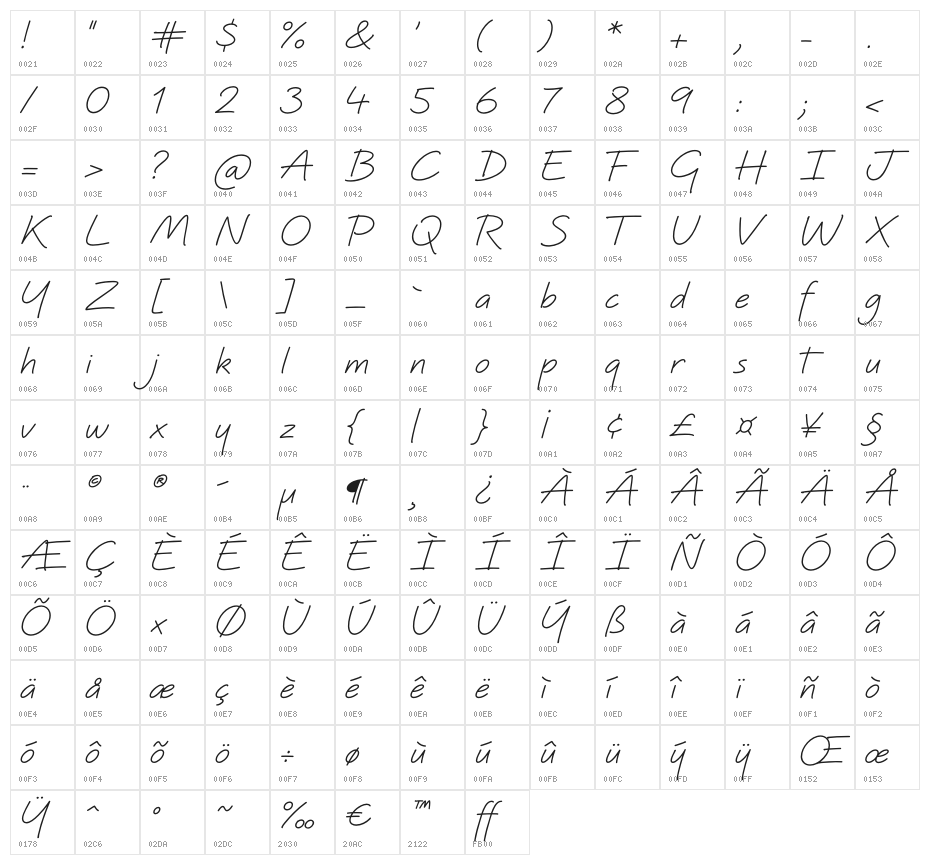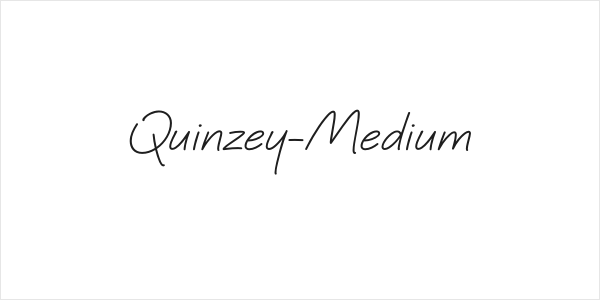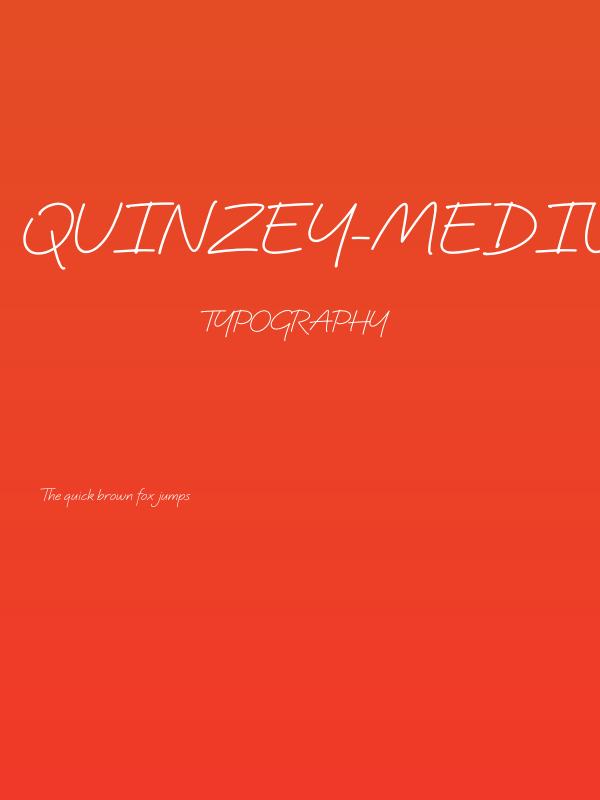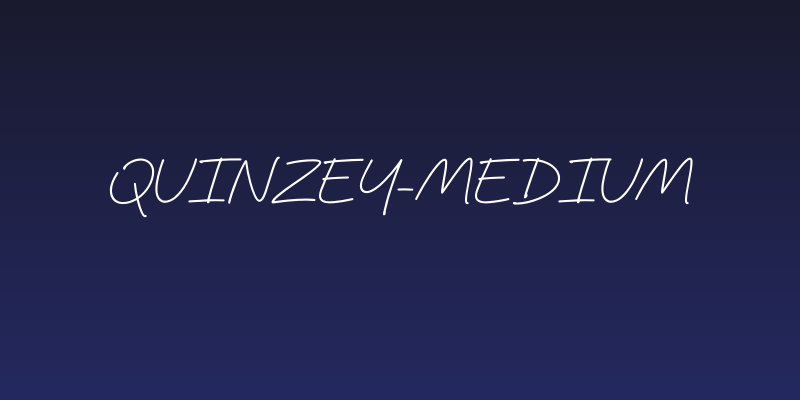
Quinzey-Medium Font
Quinzey-Medium Description
This font features a handwritten, cursive style with smooth, flowing lines that give it an elegant and personal touch. The characters are slightly slanted, enhancing the script-like appearance. Uppercase letters are distinct and slightly larger, maintaining a consistent height across the alphabet. Lowercase letters are well-proportioned, with some characters extending below the baseline, adding to the fluidity of the design. The numerals are clear and legible, matching the overall style of the alphabet. Special characters are included, maintaining the same handwritten aesthetic. This font is versatile, suitable for projects that require a personal or creative touch.
Overall StyleElegant, Personal
Use CaseLogos, Invitations, Personal Branding
Proposed ProjectsIdeal for wedding invitations, personal branding, greeting cards, and creative projects.